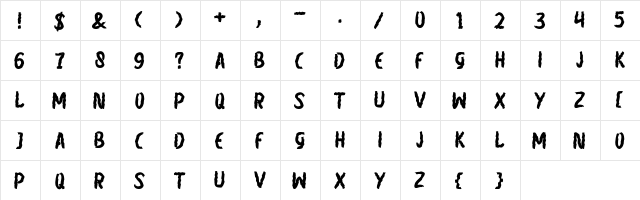
mountain art design Font Preview
mountain art design
mountain art design Font Details
Design Context for mountain Typeface
mountain is a composed and adaptable typeface that performs quietly and consistently across a wide range of design contexts.